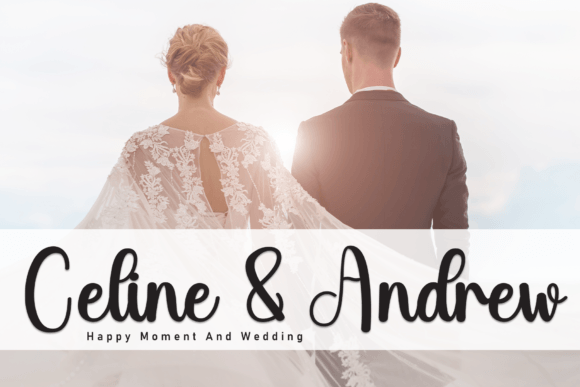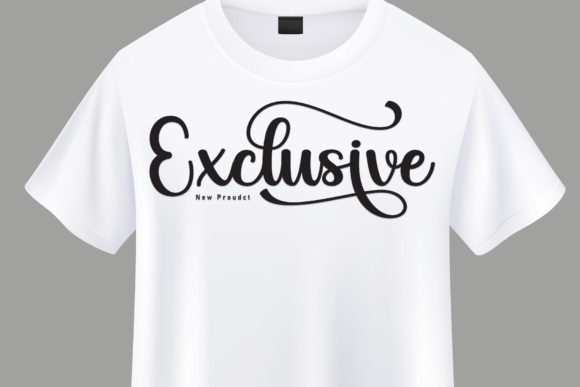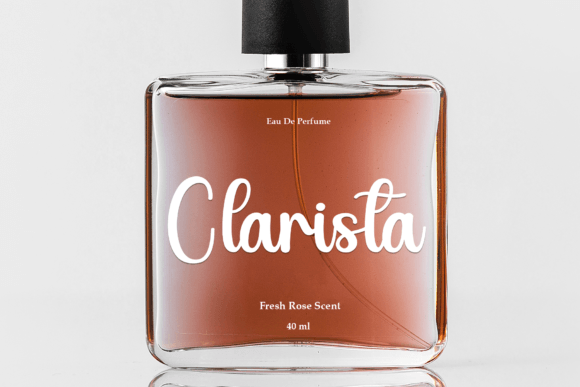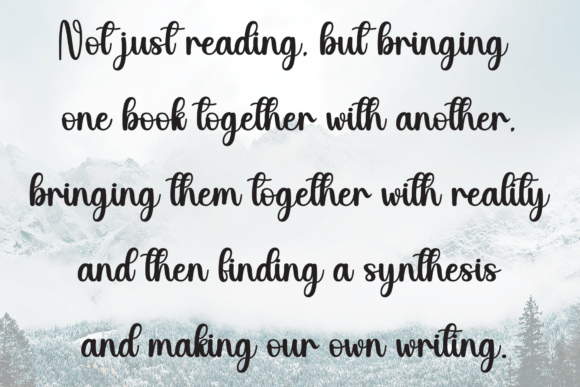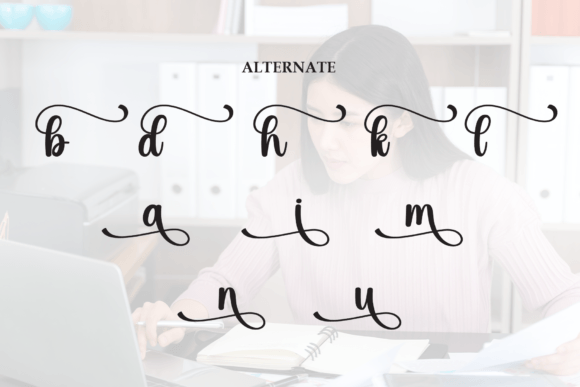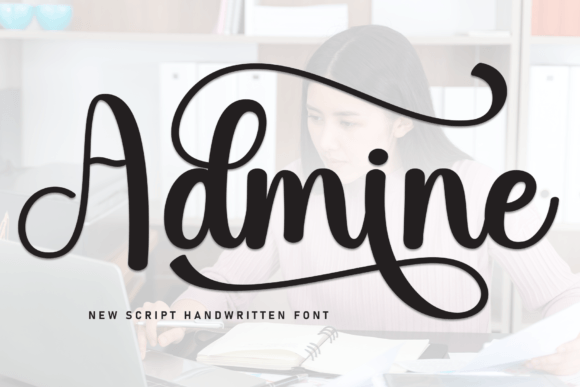
Introducing Admine Font: The Sweet and Friendly Handwritten Display Font
Are you looking for a font that can add a touch of sweetness and friendliness to your designs? Look no further than Admine Font! This beautiful handwritten display font is perfect for creating wedding invitations, cards, and other designs that require a fun and playful touch.
What is Admine Font?
Admine Font is a carefully crafted handwritten font that exudes warmth and approachability. Its sweet and friendly characters are designed to make your designs stand out and leave a lasting impression. Whether you’re a designer, crafter, or DIY enthusiast, Admine Font is an excellent choice for adding a personal touch to your projects.
Key Features of Admine Font
- Cute and Fun: Admine Font is designed to bring a smile to your face. Its playful characters are perfect for creating designs that require a lighthearted and whimsical touch.
- Handwritten: Admine Font is a handwritten font that mimics the natural flow of handwriting. Its imperfections and quirks make it look friendly and approachable.
- Display Font: Admine Font is a display font, making it perfect for headlines, titles, and other prominent text elements.
- Versatile: Admine Font can be used for a wide range of design projects, from wedding invitations and cards to posters, flyers, and more.
Use Cases for Admine Font
Admine Font is an incredibly versatile font that can be used for various design projects. Here are some use cases to get you started:
- Wedding Invitations: Add a touch of romance and whimsy to your wedding invitations with Admine Font.
- Cards: Create beautiful and personalized cards for birthdays, anniversaries, and other special occasions.
- Posters and Flyers: Use Admine Font to create eye-catching posters and flyers for events, promotions, and more.
- Social Media Graphics: Add a playful touch to your social media graphics, such as Instagram posts and Facebook covers.
Why Choose Admine Font?
With so many fonts available, why choose Admine Font? Here are a few reasons why Admine Font stands out:
- Unique: Admine Font has a unique and distinctive style that sets it apart from other fonts.
- Elegant: Despite its playful nature, Admine Font has an elegant and sophisticated feel that makes it perfect for formal designs.
- Easy to Read: Admine Font is designed to be easy to read, making it perfect for body text and captions.
Tips for Using Admine Font
To get the most out of Admine Font, here are a few tips to keep in mind:
- Pair with Other Fonts: Admine Font pairs well with other fonts, such as sans-serif fonts and script fonts.
- Experiment with Colors: Admine Font looks great in a variety of colors, from bright and bold to soft and pastel.
- Use for Headlines: Admine Font is perfect for headlines and titles, where its playful and eye-catching style can shine.
Admine Font is a sweet and friendly handwritten display font that’s perfect for adding a touch of whimsy and fun to your designs. With its unique style, elegant feel, and ease of use, Admine Font is an excellent choice for designers, crafters, and DIY enthusiasts. Try Admine Font today and see how it can elevate your designs!